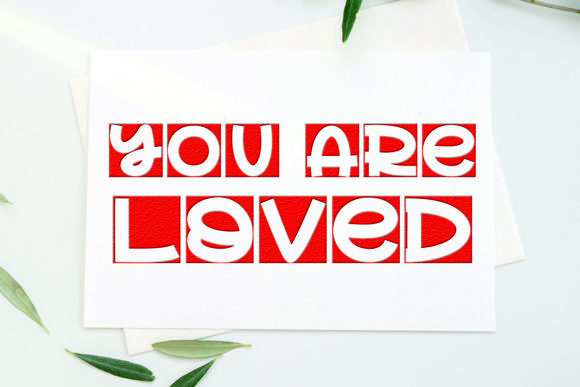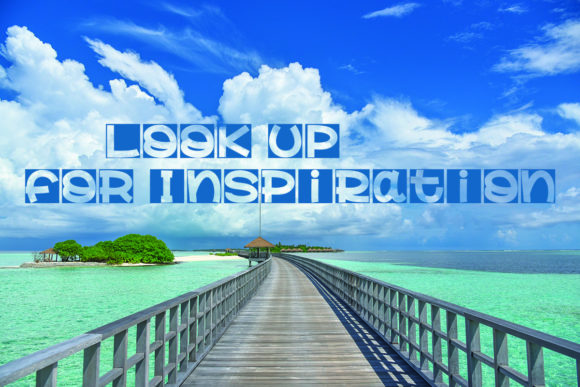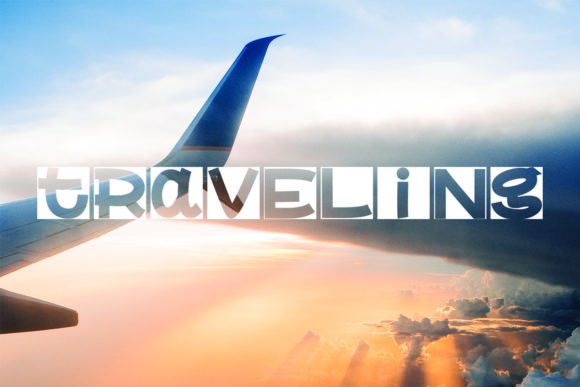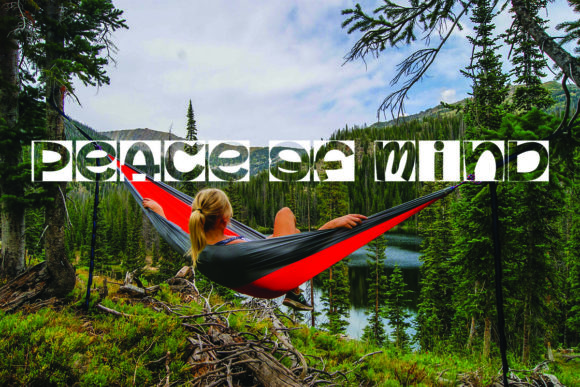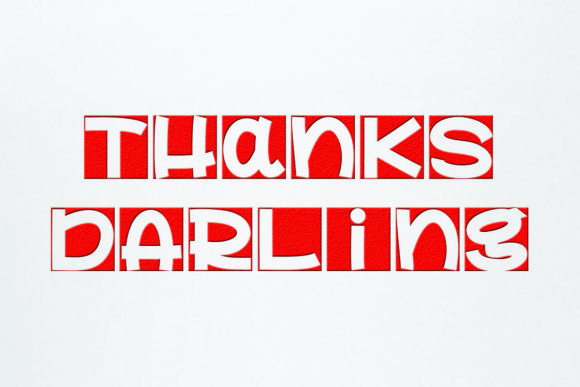
The Ultimate Font for Fun and Creativity: A Deep Dive into Bottle Duo
As a designer, I’ve had my fair share of font struggles. I recall working on a children’s book project, pouring my heart into the illustrations, only to hit a roadblock when it came to finding the perfect font. The client wanted something fun, playful, and adaptable, but not too childish. After hours of scrolling through font libraries, I stumbled upon Bottle Duo – a cool, friendly, and versatile duo font that instantly clicked. In this article, I’ll share my experience with Bottle Duo, its features, and how to make the most of it in your designs.
An Honest Review of Bottle Duo
What I Love About Bottle Duo ✨
- ✅ Versatility: Bottle Duo comes in two styles – a display font and a sans serif font – making it perfect for a wide range of projects, from cartoon-related designs to book covers and posters.
- ✅ Playful yet Professional: The font strikes a great balance between fun and sophistication, making it suitable for both children’s games and more mature designs.
- ✅ Ease of Use: Bottle Duo is incredibly easy to read and works well in various contexts, from titles and quotes to brand names and body text.
- ✅ OpenType Features: The font supports OpenType features, allowing for advanced typographic control and customization.
- ⚠️ Limited Use in Serif-Heavy Designs: While Bottle Duo is incredibly versatile, it might not be the best fit for designs that heavily feature serif fonts, as it could disrupt the visual harmony.
- ⚠️ Glyph Limitations: As with any font, there might be limitations in terms of available glyphs or special characters, so it’s essential to test the font with your specific needs.
The Story Behind Bottle Duo
Bottle Duo was designed with creativity and fun in mind. The designer aimed to create a font that would bring joy and playfulness to various projects, from children’s books to posters and branding. The result is a versatile duo font that can adapt to different design needs while maintaining a consistent, friendly feel.
Q: What makes Bottle Duo suitable for children’s designs?
A: Bottle Duo’s playful and friendly design, combined with its readability, makes it an excellent choice for children’s books, games, and other related projects.
Q: Does Bottle Duo support OpenType features?
A: Yes, Bottle Duo supports OpenType features, allowing for advanced typographic control and customization.